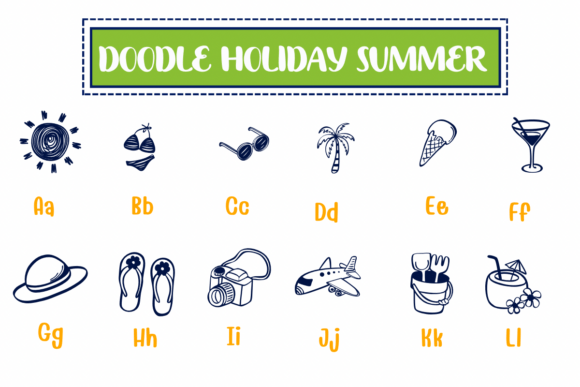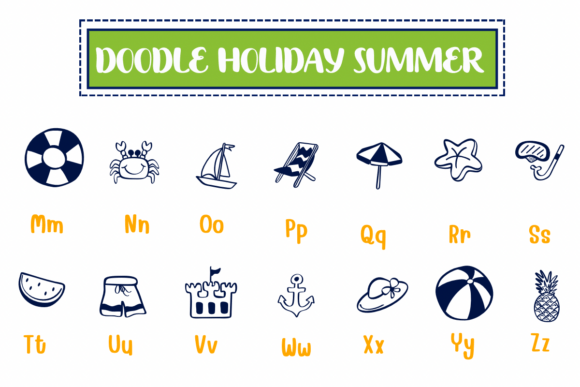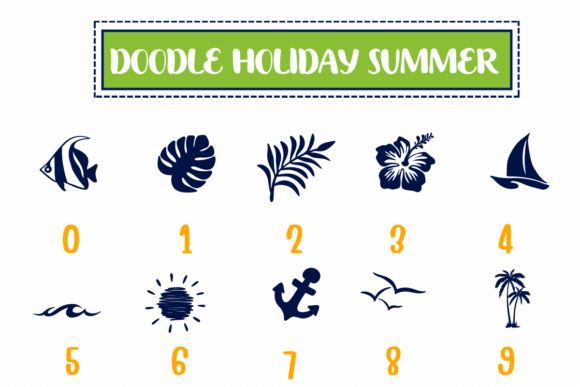
Doodle Holiday Summer Font
Holiday Doodle – Summer Font is a vibrant and playful dingbats font filled with hand-drawn summer icons. From beach balls and flip-flops to sailboats and tropical drinks, this collection captures all the fun and relaxation of a perfect vacation. Ideal for summer-themed designs, party invites, scrapbooking, stickers, and social media graphics, this font brings sunshine and joy to every project!